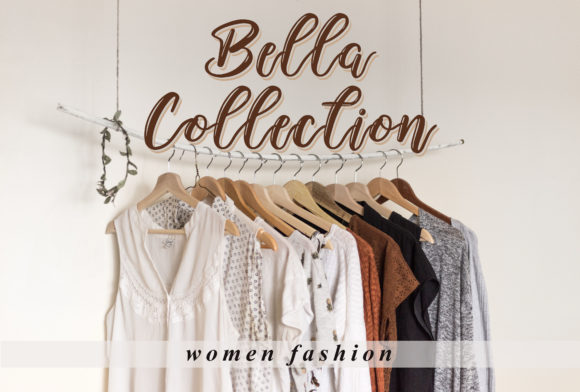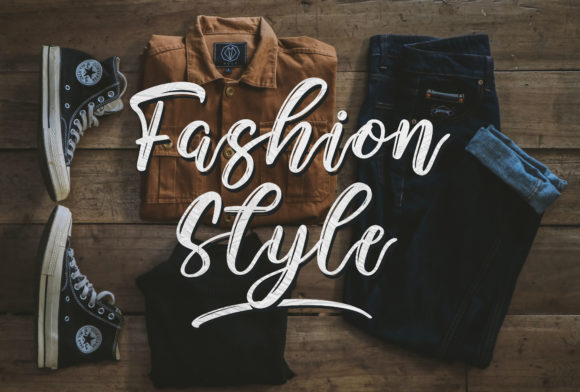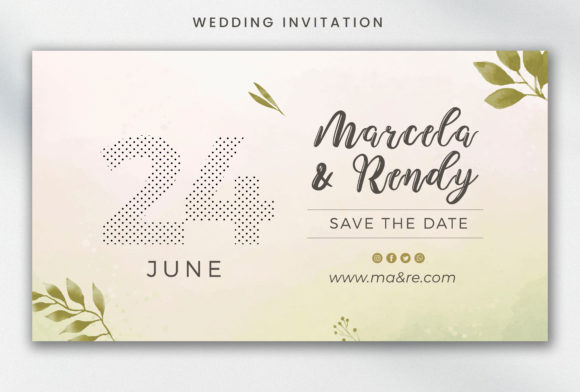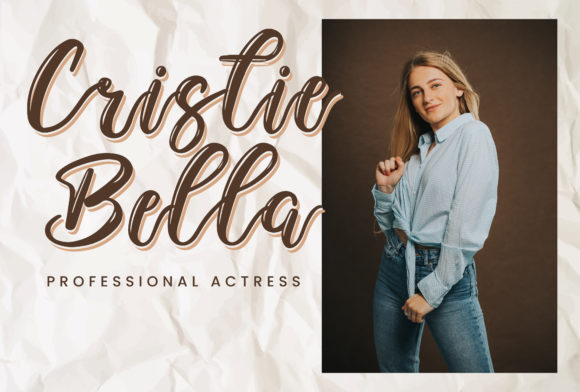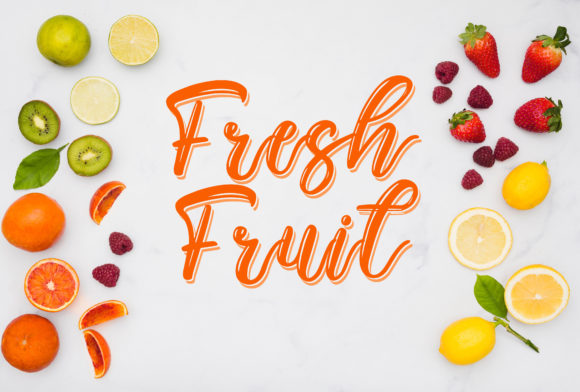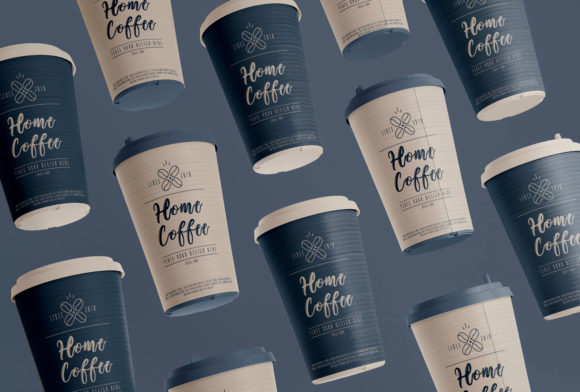
Introducing Edelwise Script Font: Elevate Your Designs with Timeless Elegance
In the world of typography, a beautiful handwritten font can make all the difference in creating visually stunning designs. Edelwise Script Font is a gorgeous, timeless addition to any design project, offering a touch of elegance and sophistication. Whether you’re a designer, crafty DIY enthusiast, or social media influencer, this versatile font is sure to become your go-to choice for creating attractive logos, branding, social media posts, wedding decorations, and quotes.
What Makes Edelwise Script Font So Special?
Edelwise Script Font stands out from the crowd with its unique, flowing script style that exudes a sense of luxury and refinement. Its beautiful, handwritten aesthetic is perfect for adding a personal touch to your designs, making them more engaging and memorable. The font’s classic look and feel ensure that it will never go out of style, allowing you to create timeless pieces that will remain relevant for years to come.
PUA Encoding for Easy Access to Glyphs and Swashes
One of the key features that sets Edelwise Script Font apart is its PUA (Private Use Area) encoding. This means that you can easily access all of the font’s glyphs and swashes, giving you greater flexibility and creative control over your designs. With PUA encoding, you can effortlessly navigate through the font’s extensive character set, including alternates, ligatures, and decorative swashes, to create truly unique and eye-catching designs.
Endless Design Possibilities with Edelwise Script Font
The versatility of Edelwise Script Font makes it an excellent choice for a wide range of design projects. Here are just a few examples of how you can use this beautiful font:
- Social Media Posts: Elevate your social media presence with eye-catching posts that incorporate Edelwise Script Font.
- Wedding Decorations: Add a touch of romance and elegance to your wedding designs, including invitations, programs, and place cards.
- Quotes and Typography: Use Edelwise Script Font to create inspiring quotes, posters, and typographic art that showcases your favorite phrases.
Why Choose Edelwise Script Font?
With so many fonts available, why choose Edelwise Script Font? Here are just a few reasons why designers and crafters love this beautiful font:
- Unique and Timeless Design: Edelwise Script Font offers a distinctive, classic look that will never go out of style.
- Ease of Use: PUA encoding makes it easy to access and use the font’s extensive character set.
- Versatility: Use Edelwise Script Font for a wide range of design projects, from logos and branding to social media posts and wedding decorations.
- High-Quality Design: Edelwise Script Font is designed with precision and attention to detail, ensuring a high-quality look and feel.
| Font Name | Edelwise Script Font |
| Author | Inani Type |
In conclusion, Edelwise Script Font is a stunning, timeless addition to any design project. With its beautiful, handwritten aesthetic, PUA encoding, and versatility, this font is sure to become a favorite among designers and crafters. Whether you’re looking to create attractive logos, branding, social media posts, wedding decorations, or quotes, Edelwise Script Font is the perfect choice. So why wait? Download Edelwise Script Font today and elevate your designs with timeless elegance!